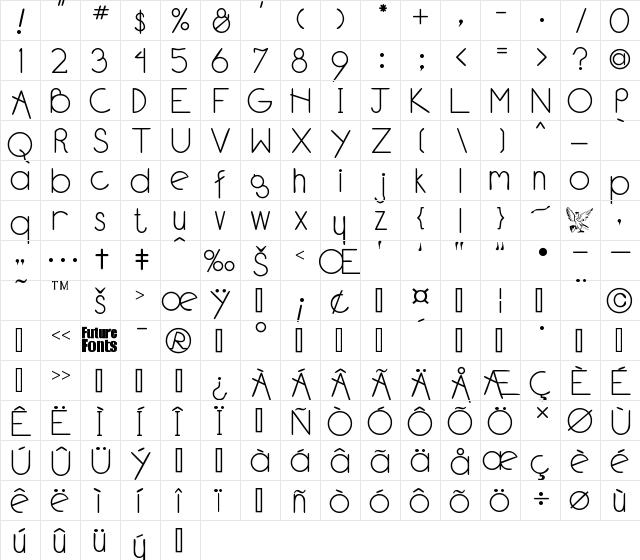
Blakeley Regular
Design Context for Blakeley Typeface
Blakeley is a composed and adaptable typeface that performs quietly and consistently across a wide range of design contexts.